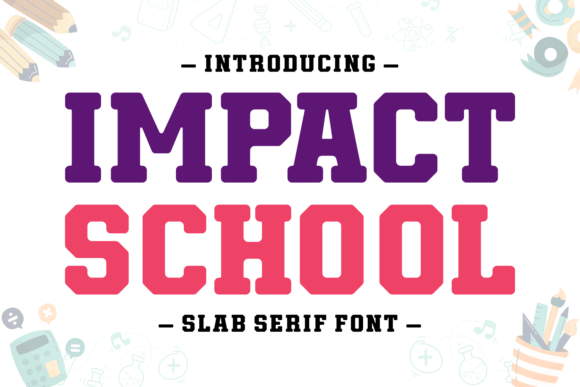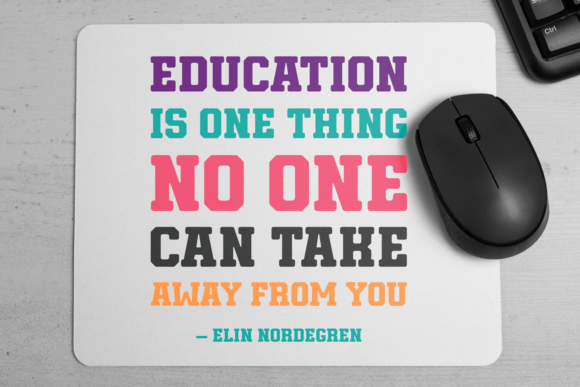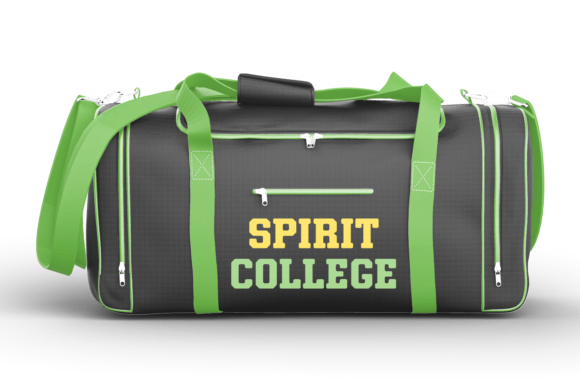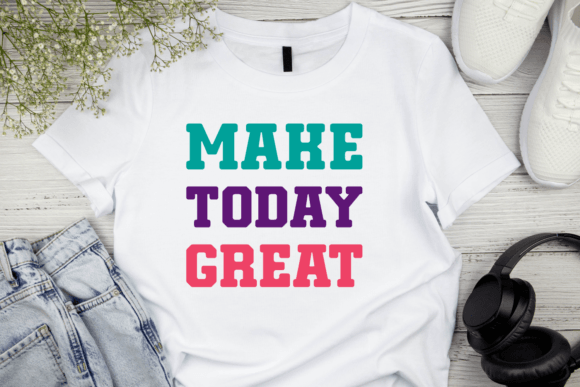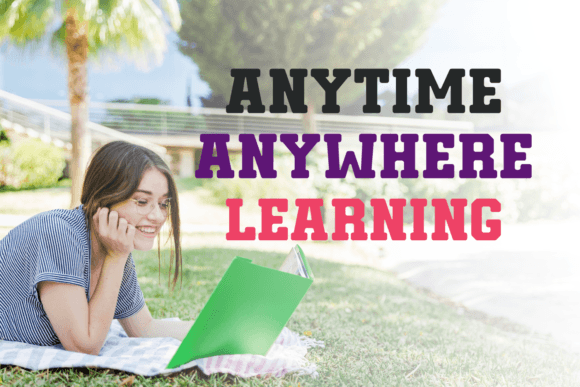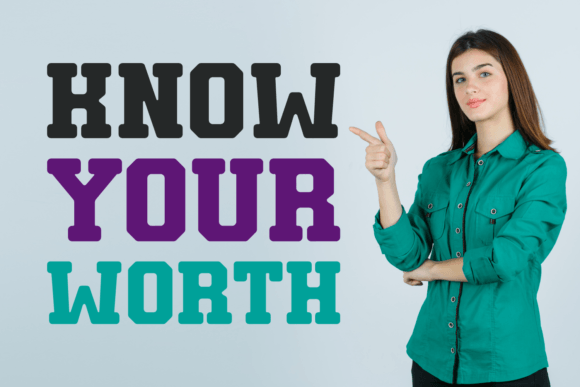
Impact School Font
About Impact School Font
Impact School is a slab serif font that’s a class above. This font’s clean, elegant contours make it an ideal choice for magazine features and poster art, while its robust, bold personality stands out on t-shirt designs and book covers.
Impact School truly shines in the sporting and collegiate realms, artfully capturing the spirit of competition and academia. Its modern flair brings a fresh perspective to branding and logotypes, effortlessly transforming casual apparel into a refined fashion statement.